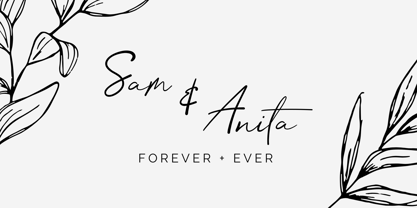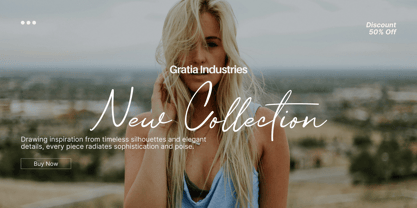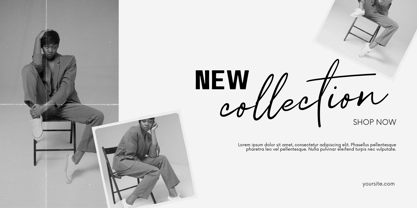
Gratior
The Gratior Font Family was designed by Benediktus Hosni Iryandito and published by ReivNick. Gratior contains 1 styles. More about this family
Gratior is a stunning script font that embodies elegance and allure. Its flowing flourishes and intricate details draw attention, making it ideal for wedding invitations, branding, and signage. With its classic charm and delicate curves, Gratior infuses a sense of sophistication into any design endeavor.
Hi. My name is Ryan. I have been passionate about creating handwritten fonts, especially script fonts. In 2020, I founded ReivNick, an independent type foundry based in Malang, Indonesia. ReivNick focuses on crafting script typefaces for photography, branding, quotes, and logo design. My work is driven by expressive lettering and careful attention to detail, aiming to create fonts that feel personal, elegant, and versatile for creative use.